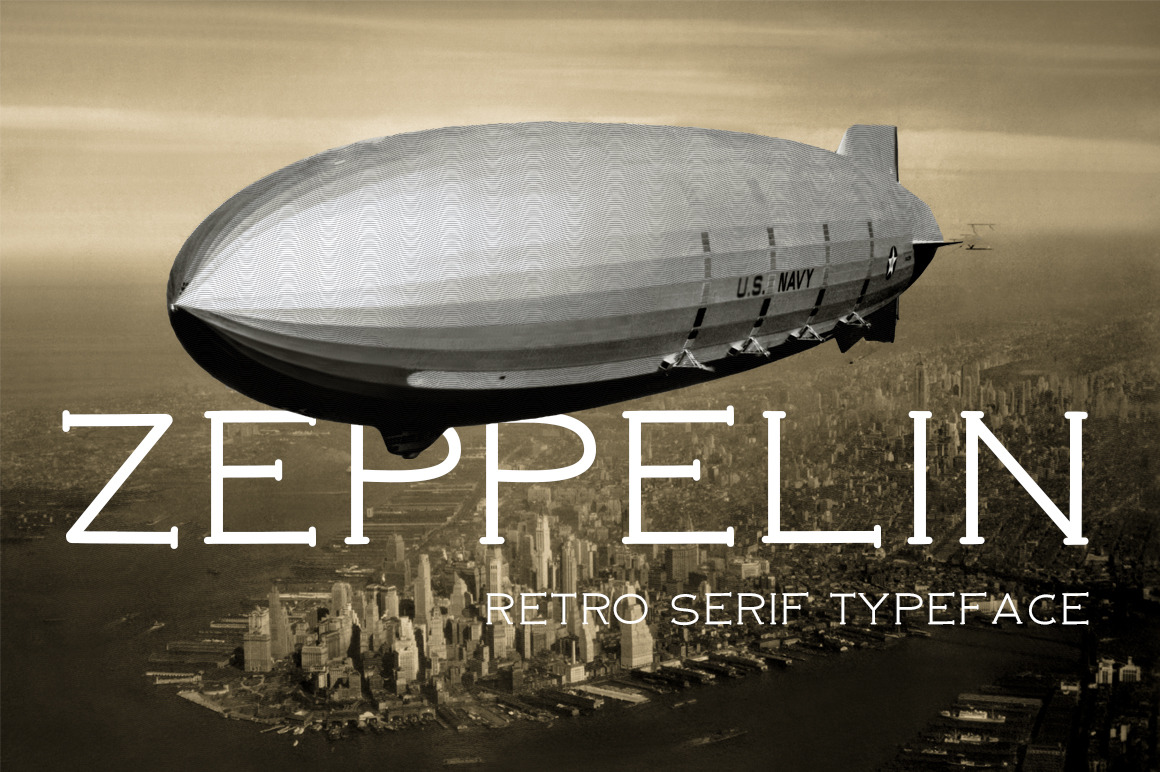
Zeppelin retro font
Once airships symbolized dream of mankind to be exalted and fly under the sky. However, the era of extraordinarily huge aerial monsters ended almost immediately, leaving behind only sad memories of the past. This font is made in the style of the time - it is perfect for creating vintage and steampunk works, decoration of photos and postcards.
Font: ZeppelinUP is a vintage serif font which is perfect for retro design projects, creative logos & titles.